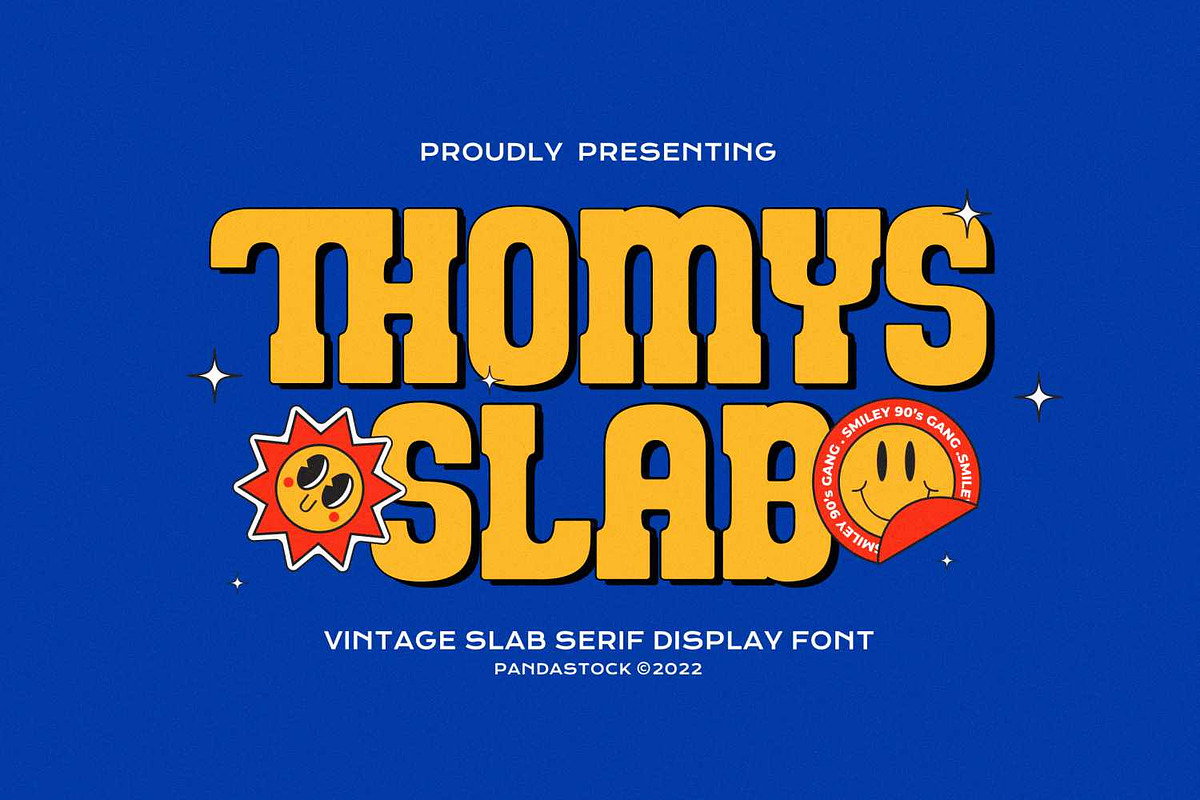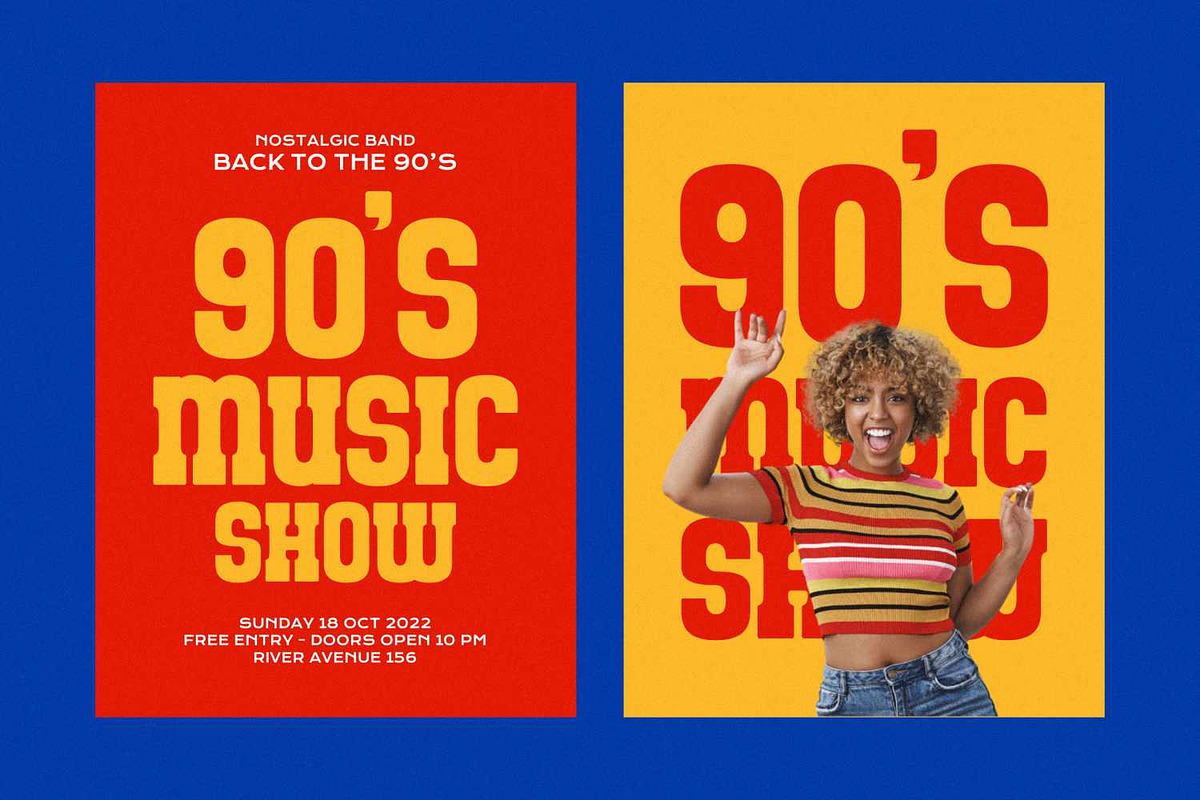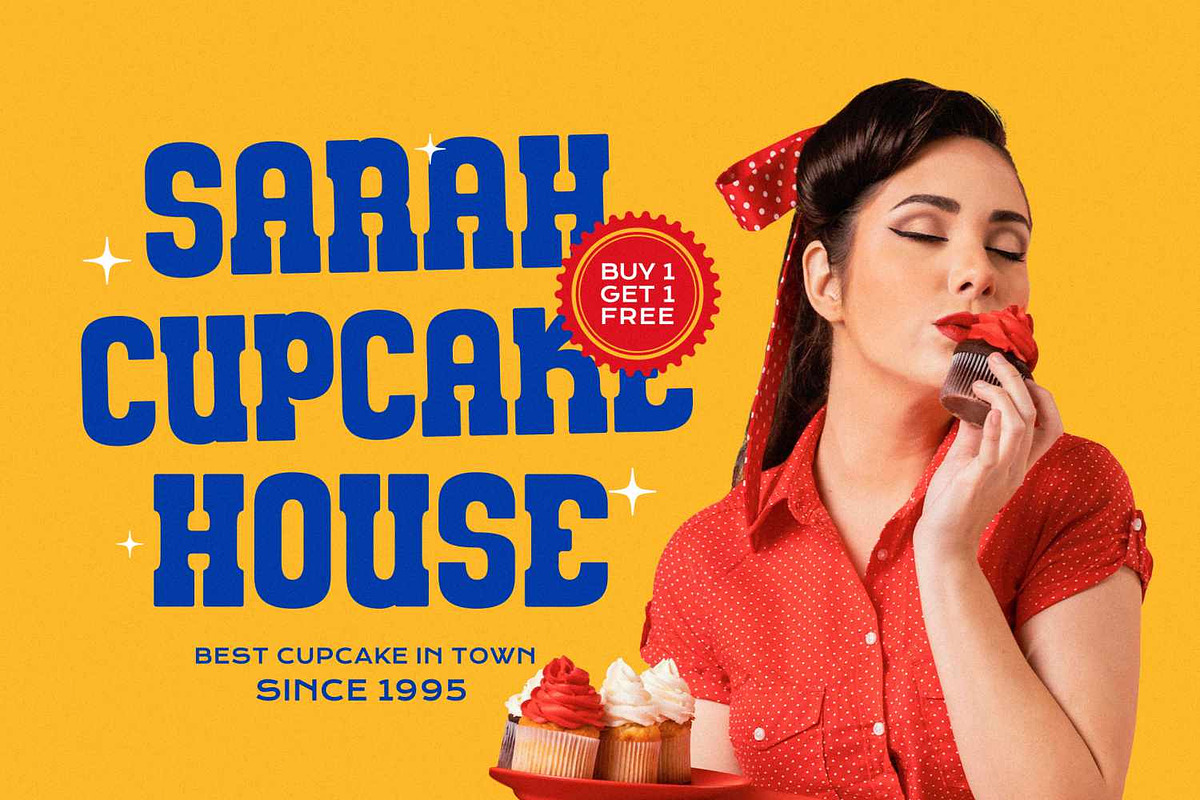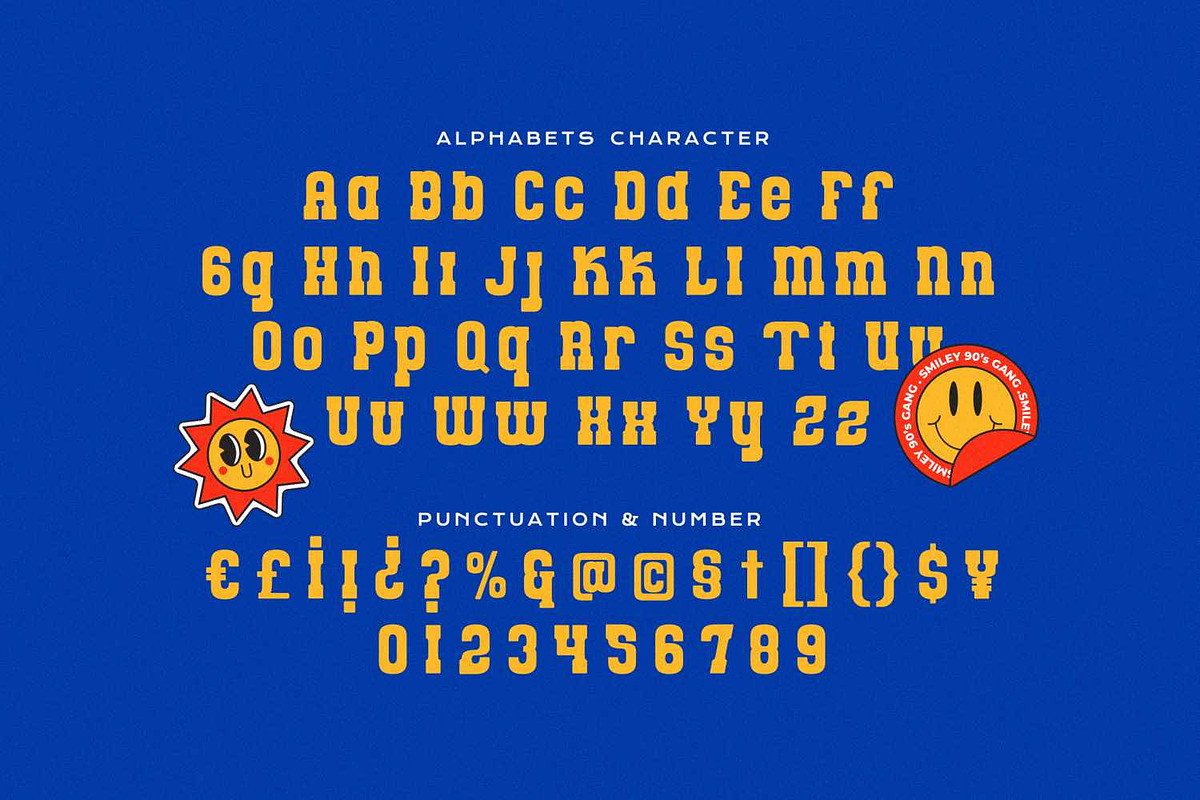
Thomys Slab | Vintage Slab Serif
Thomys Slab is a vintage slab serif display font that brings the fun and optimism of the 90s straight into your design workflow. Each letterform is built on a solid geometric framework, featuring thick slab serifs, exaggerated curves, and just the right amount of unique flair to keep things playful yet professional.
This font is perfect for any project that needs a cool retro touch whether it’s packaging, social media ads, big headlines, event flyers, packaging labels, varsity jackets, restaurant menus, retro signage, classic concert posters, or edgy branding.